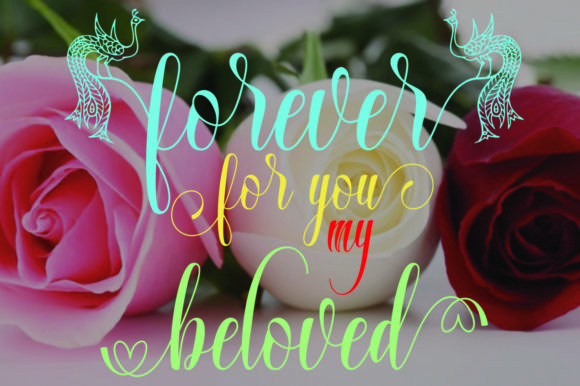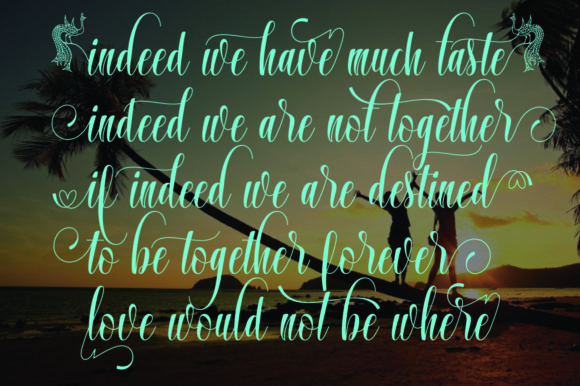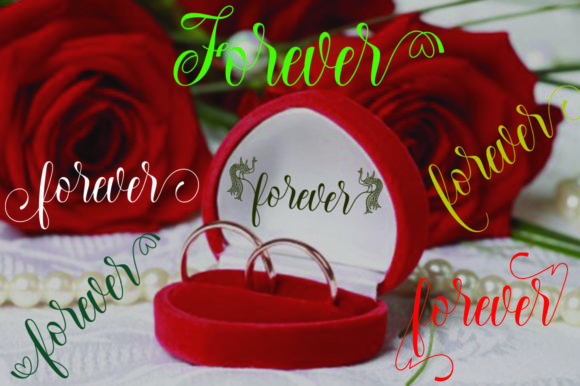
Introduction to Bantasi Font
Bantasi is a stunning script font with amazing swashes.
Bantasi is a stunning script font with amazing swashes!
Key Features of Bantasi Font